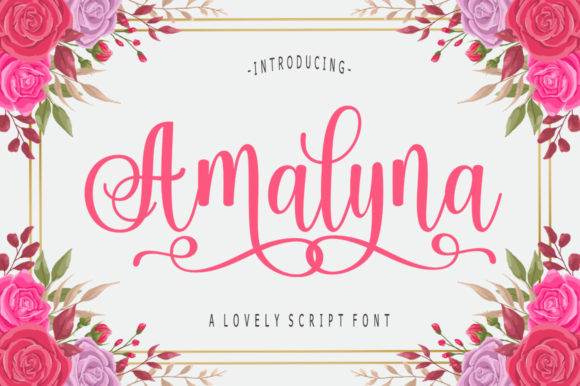
Introducing Amalyna Font: A Modern and Sweet Handwritten Font
Are you looking for a font that can add a touch of elegance and sophistication to your designs? Look no further than Amalyna Font, a modern and sweet handwritten font that is sure to make your projects stand out. With its unique and playful characters that seem to dance along the baseline, Amalyna Font is the perfect choice for anyone looking to add a chic and stylish accent to their work.
What Makes Amalyna Font Special?
Amalyna Font is a modern and sweet handwritten font that is designed to make your designs look fresh and contemporary. Its characters are carefully crafted to seem like they are dancing along the baseline, giving your text a playful and lively feel. This font is perfect for a variety of purposes, including branding, packaging, and advertising, and can be used to add a touch of elegance and sophistication to any project.
Key Features of Amalyna Font
- Modern and Sweet Design: Amalyna Font has a modern and sweet design that is sure to make your projects stand out. Its unique and playful characters are carefully crafted to seem like they are dancing along the baseline, giving your text a lively and playful feel.
- Chic and Stylish Accent: Amalyna Font is designed to add a chic and stylish accent to your projects. Its unique and playful characters are sure to make your text stand out, and can be used to add a touch of elegance and sophistication to any design.
- Versatile: Amalyna Font is a versatile font that can be used for a variety of purposes, including branding, packaging, advertising, and more. Its modern and sweet design makes it perfect for a wide range of applications, from digital publishing to graphic design.
Benefits of Using Amalyna Font
- Adds a Touch of Elegance and Sophistication: Amalyna Font is designed to add a touch of elegance and sophistication to your projects. Its unique and playful characters are sure to make your text stand out, and can be used to add a touch of style to any design.
- Increases Readability: Amalyna Font is a highly readable font, making it perfect for use in a variety of applications, including digital publishing and graphic design.
- Versatile: Amalyna Font is a versatile font that can be used for a variety of purposes, including branding, packaging, advertising, and more.
Tips for Getting the Most Out of Amalyna Font
- Use it for Headings and Titles: Amalyna Font is perfect for use in headings and titles, where its unique and playful characters can really make your text stand out.
- Experiment with Different Sizes and Colors: Amalyna Font looks great in a variety of sizes and colors, so don’t be afraid to experiment and find the perfect combination for your project.
- Pair it with Other Fonts: Amalyna Font can be paired with a variety of other fonts to create a unique and stylish look.